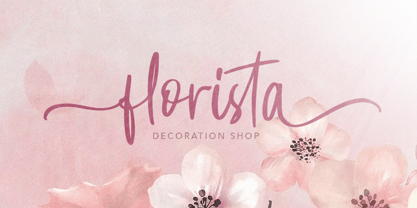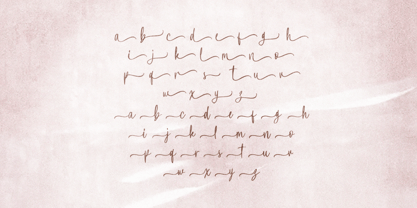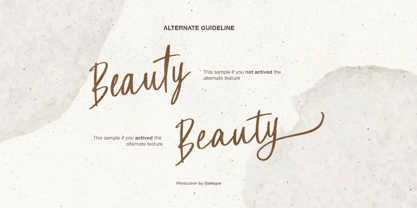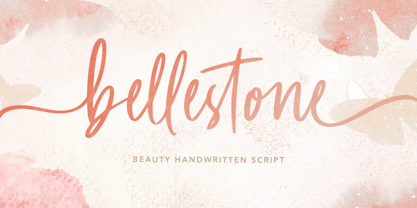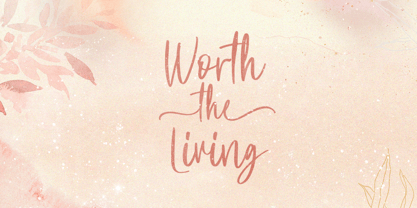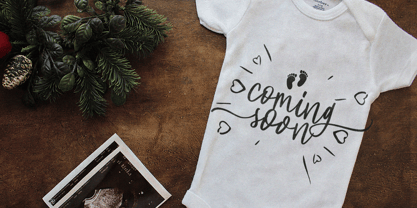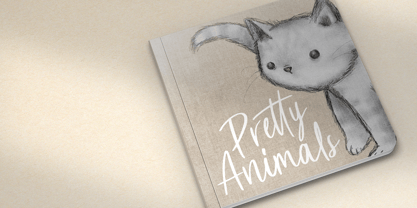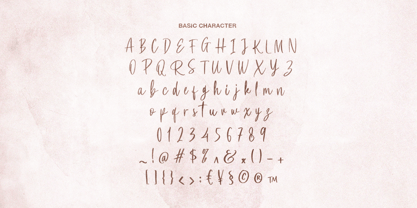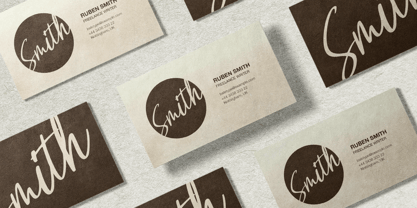
Bellestone
by Bale Type
The Bellestone Font Family was designed by Sarid Ezra, Dzikrul Aulia and published by Bale Type. Bellestone contains 1 styles. More about this family
Bellestone is a beauty handwritten script with ligatures and swashes. With natural handwriting, this font will make your design more organic and beautiful. This font is suitable for wedding invitation, logotype, apparel, invitation, letterhead, branding, packaging, advertising, label, posters, quotes and more. Bellestone also support multilingual.
Designers: Sarid Ezra, Dzikrul Aulia
Foundry: Bale Type